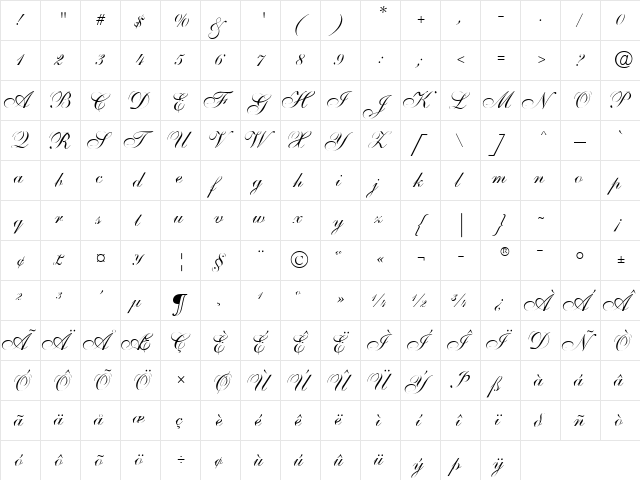
Shelley Allegro Script Regular Font Preview
Shelley Allegro Script Regular
Design Context for Shelley Allegro Script Typeface
Shelley Allegro Script brings a calligraphic fluidity to the page — its connecting strokes and expressive curves give it an unmistakably human quality.
Font Pairing: Combine Shelley Allegro Script with a simple geometric sans for maximum contrast — the tension between flowing curves and clean structure is a classic typographic pairing.
Pro Tip: Use Shelley Allegro Script for short runs of text — names, titles, or taglines. Extended body copy in script faces tires the eye quickly.